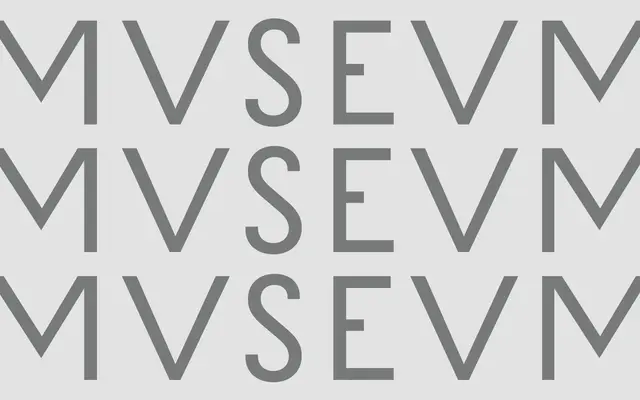
MVSEVM
A five-weight sans inspired by hand-carved Roman imperial capitals, pairing a historically grounded uppercase with a contemporary lowercase designed to match.
The uppercase draws on carved lettering from the Roman empire, giving the family a stately, monumental quality distinct from conventional grotesque or humanist models. A lowercase has been designed to sit alongside the historically informed caps without feeling anachronistic. Five weights from Regular to Black make it usable across both headline and text settings.
A sans-serif whose uppercase draws directly from Roman imperial carved letterforms, giving it an inscriptional character that sits outside conventional grotesque or humanist classification. The lowercase is a contemporary companion designed to harmonise with the historically derived caps.